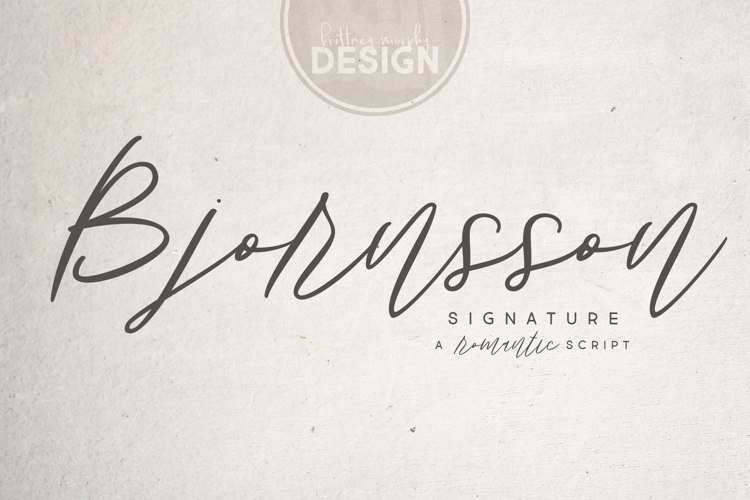
Bjornsson Signature Font
About Bjornsson Signature Font
About the Bjornsson Signature Font
Bjornsson Signature is a smooth script from Brittney Murphy Design, created in 2022. A flowing and naturally handwritten font, Bjornsson Signature will give projects a uniquely romantic style. The full version of the font comes with over 300 glyphs and includes support for most Latin-based languages as well as numerous numbers and symbols.